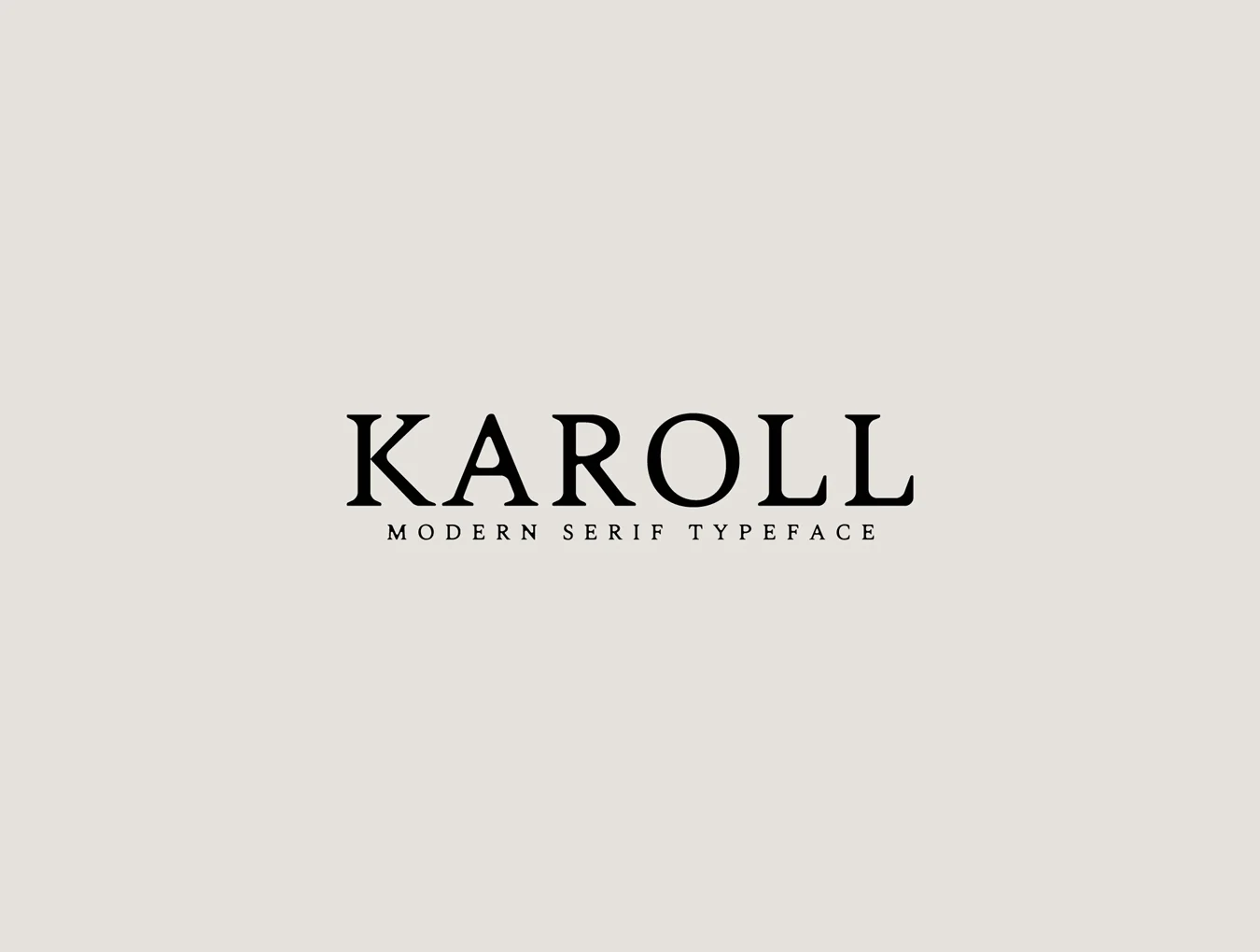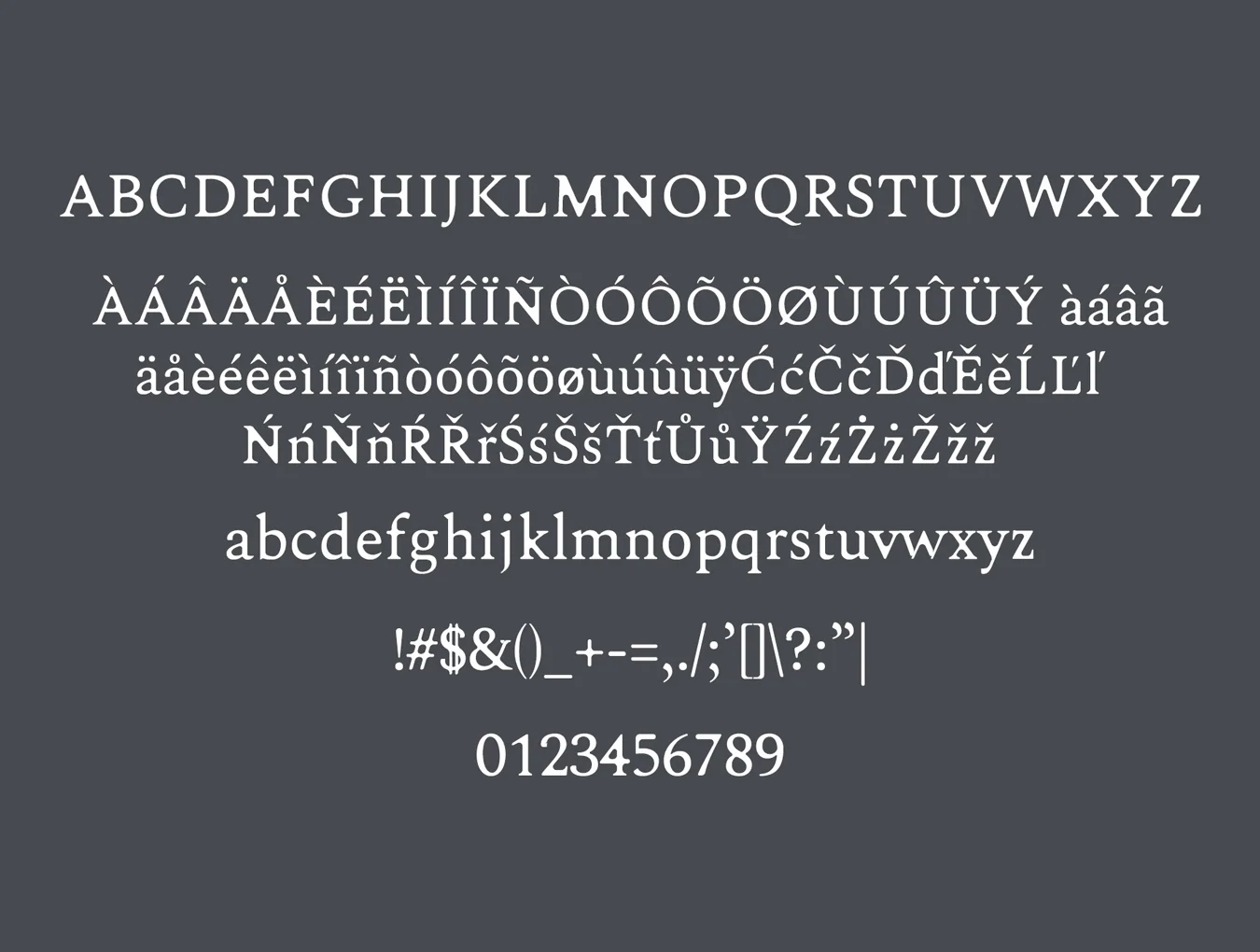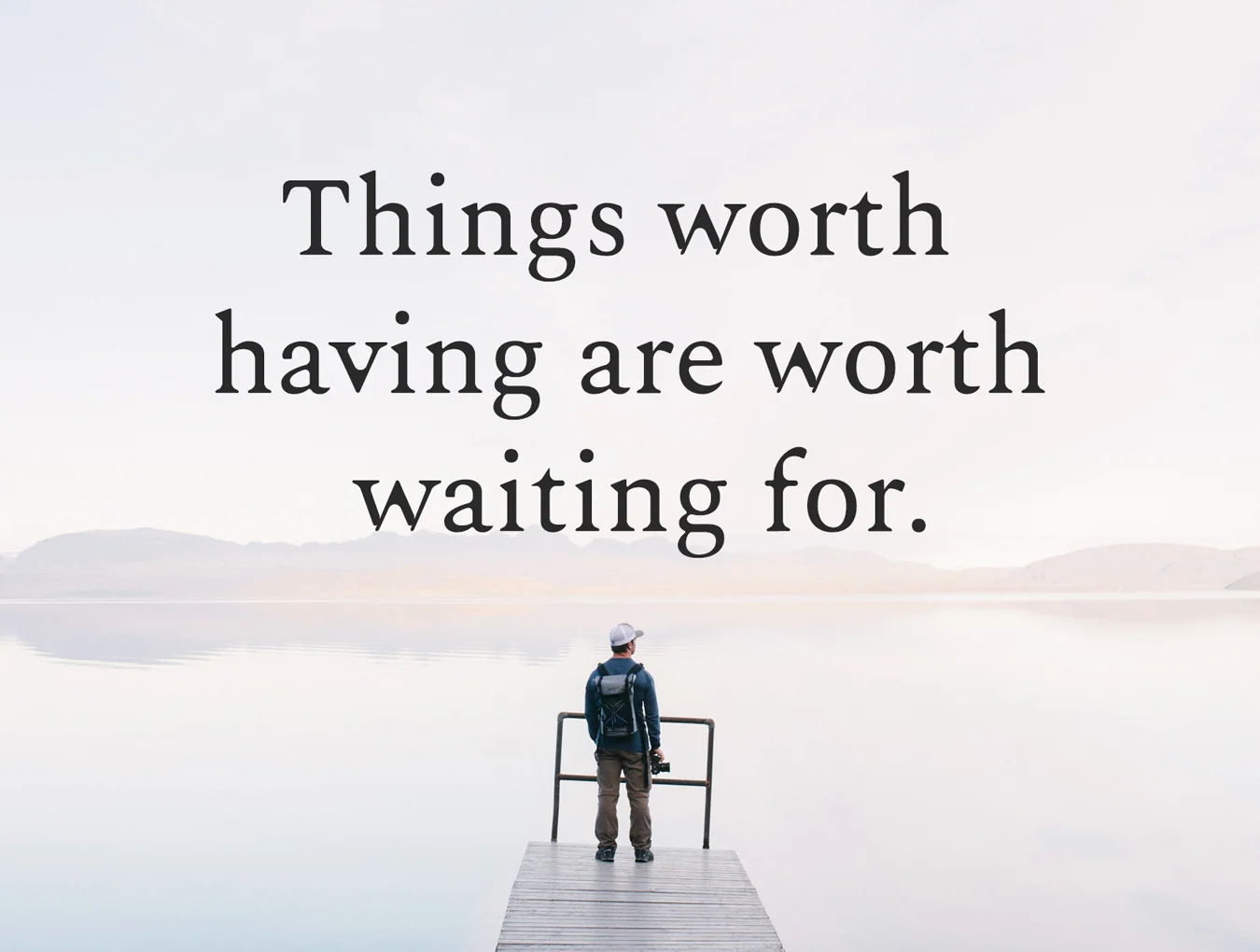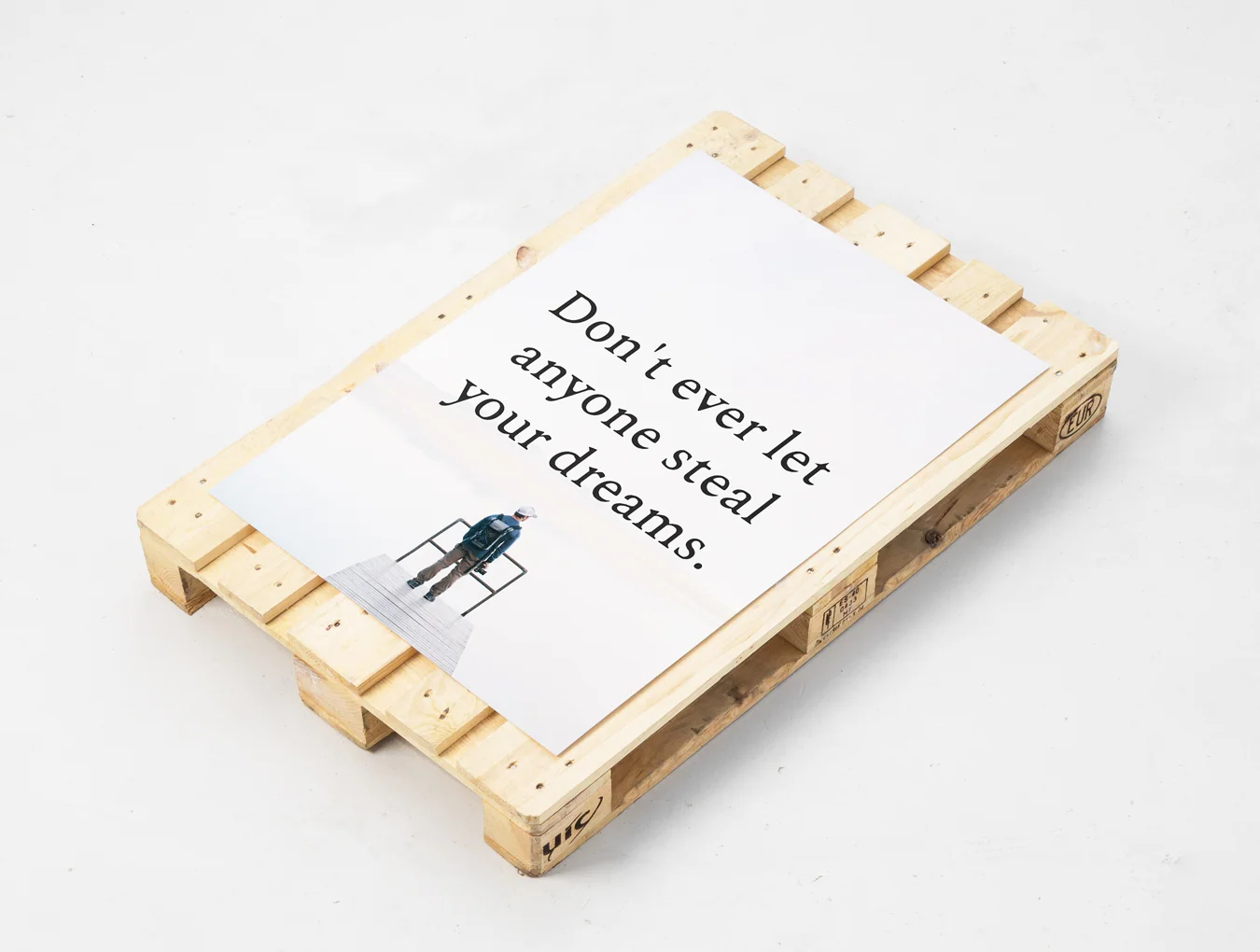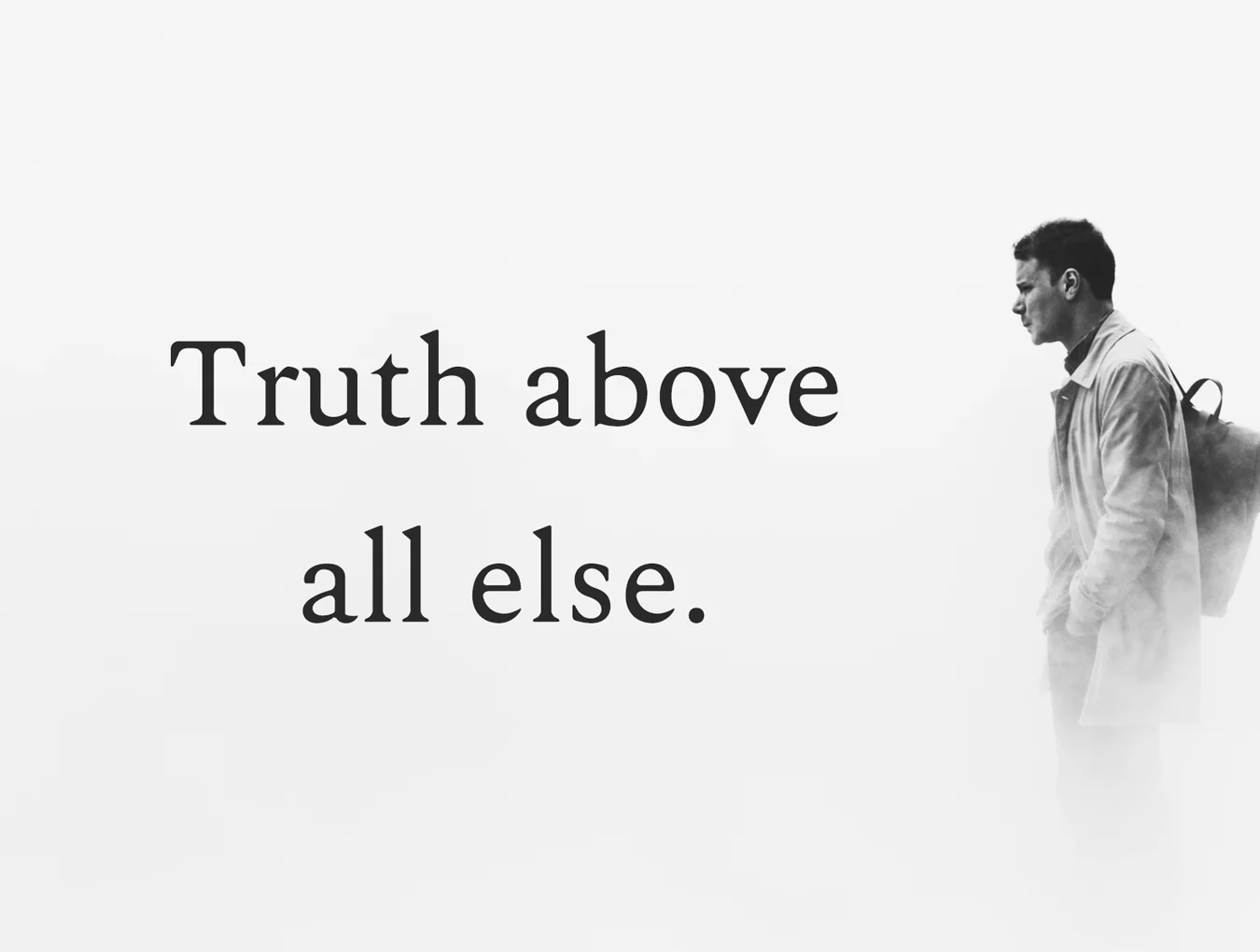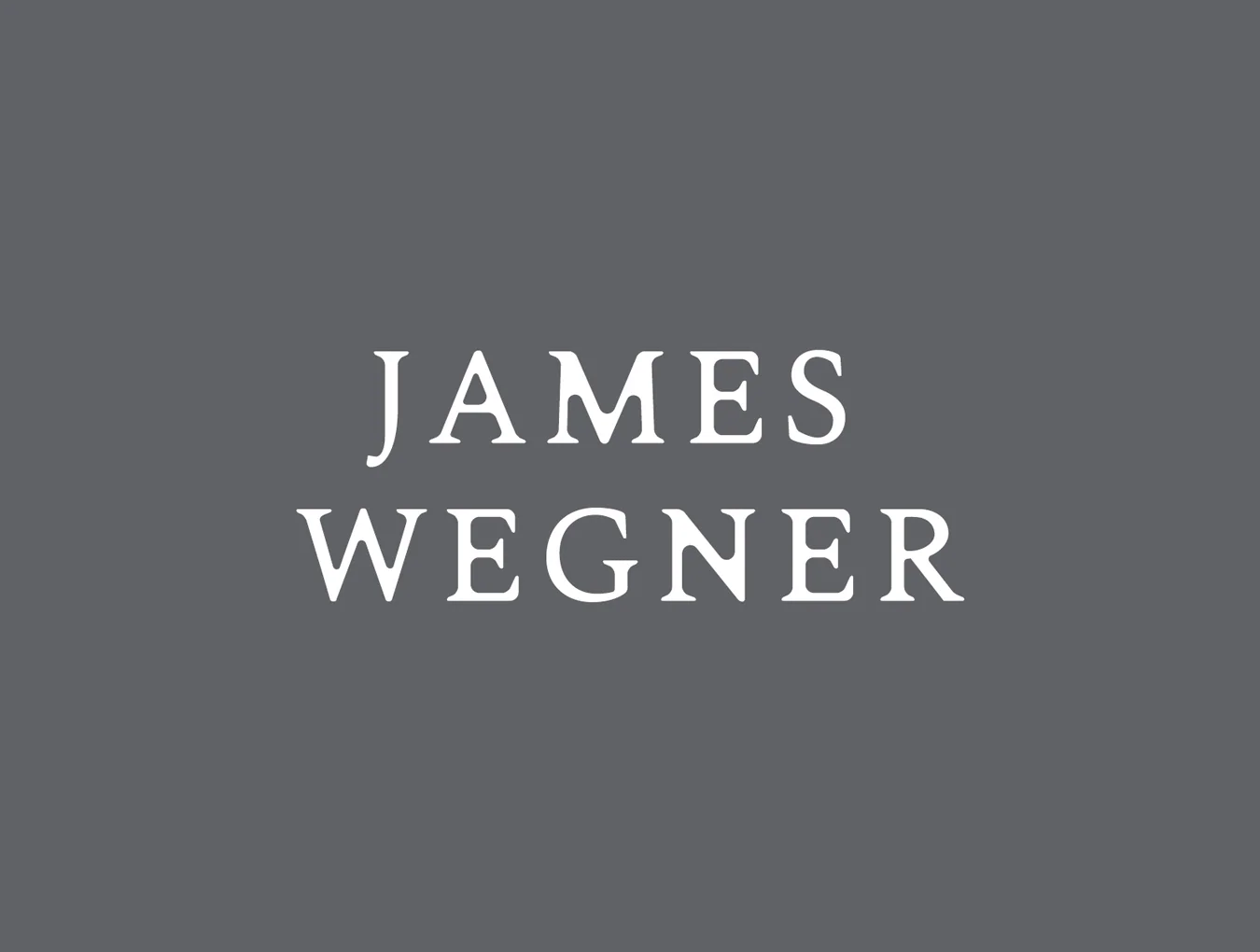
Karoll Modern Serif Family
Serif Typeface
255 characters included
Rounded, Light and Bold styles
Karoll is a refined serif typeface with vintage influence and clean, elegant lines. It comes with essential glyphs plus multilingual characters, and pairs well with display, signature, sans serif, script, or handwritten fonts. Ideal for logos, headlines, posters, quotes, ads, titles, magazine headers, web layouts, invitations, packaging, books, branding, and many creative projects.